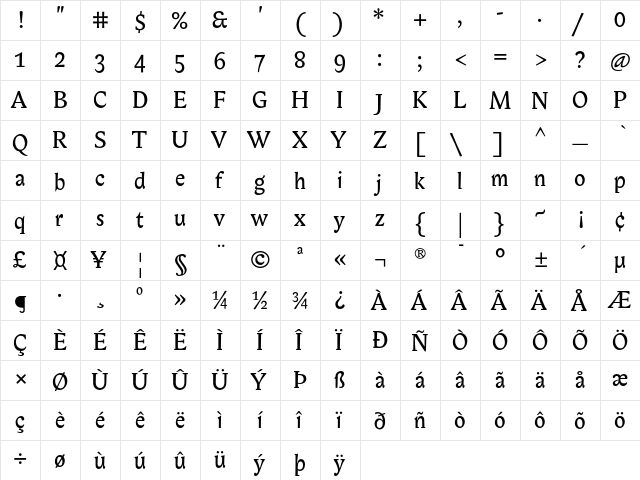
Biblon OT Regular
Design Context for Biblon OT Typeface
Biblon OT offers clean, dependable letterforms without strong stylistic allegiance, making it a practical choice for designers who need flexibility.
Pro Tip: Use Biblon OT in both headline and body roles to test its range before committing to a single application.